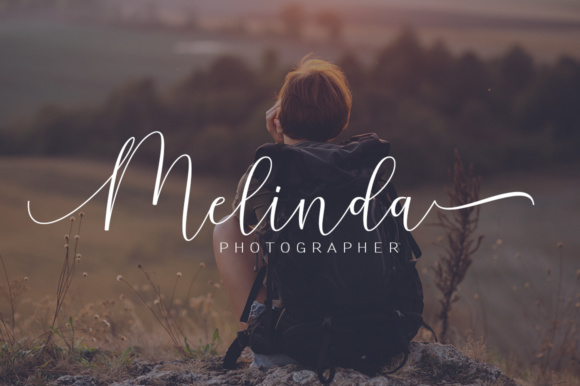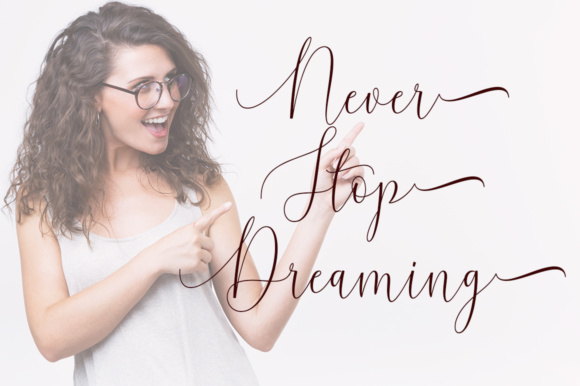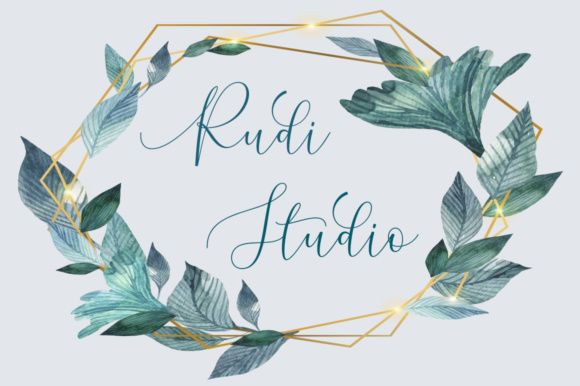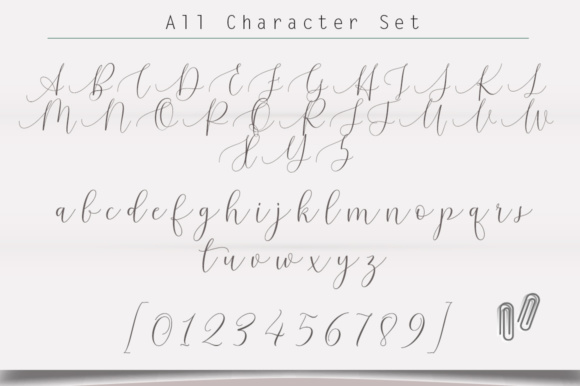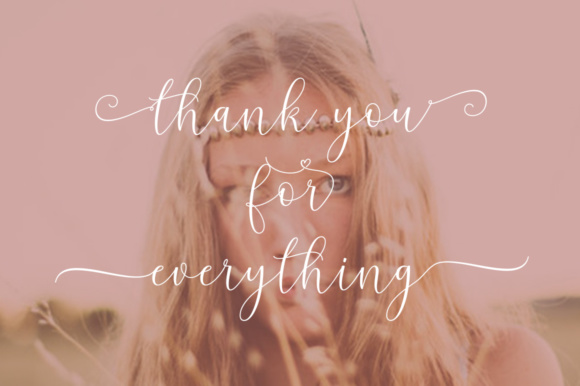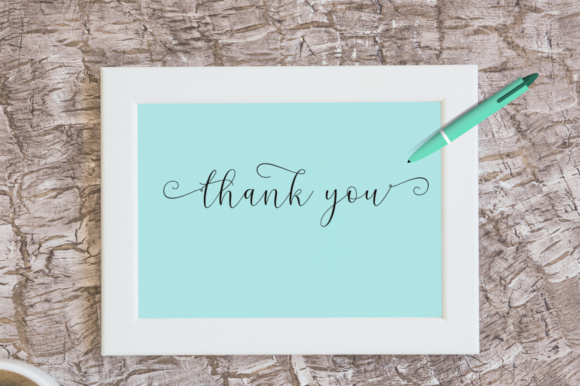
Melinda Font
About Melinda Font
The Melinda is a modern calligraphy typeface. It has an elegant feel and contains unique forms of calligraphy.
It’s perfect for headings, logos, wedding invitations, t-shirts, letterheads, labels, news, posters, badges, and much more!